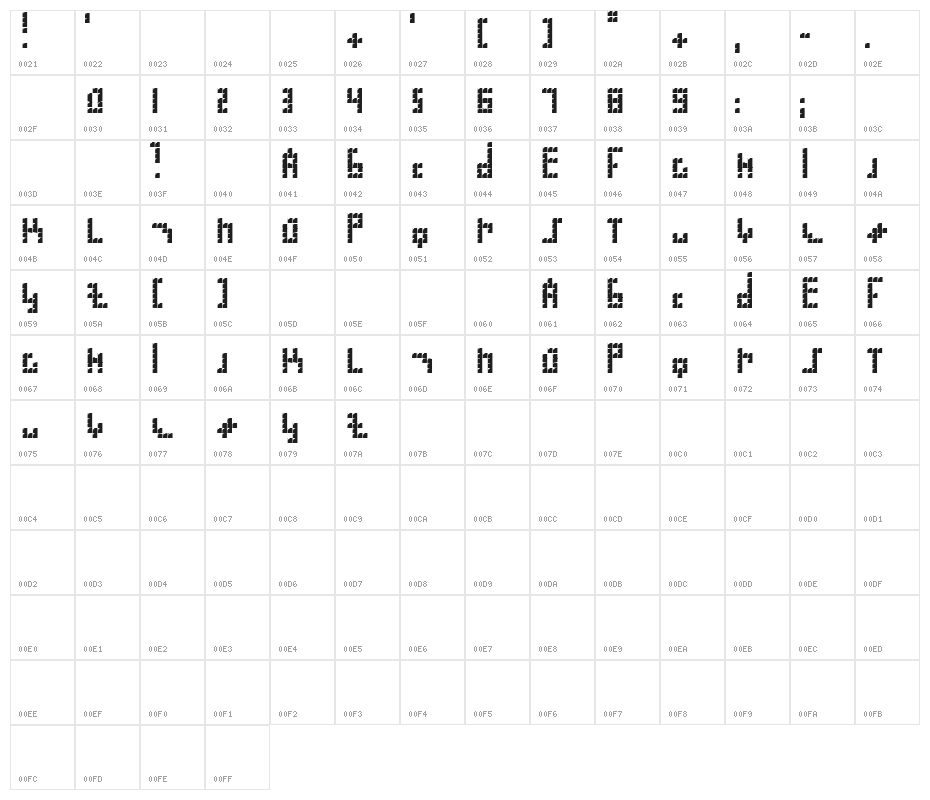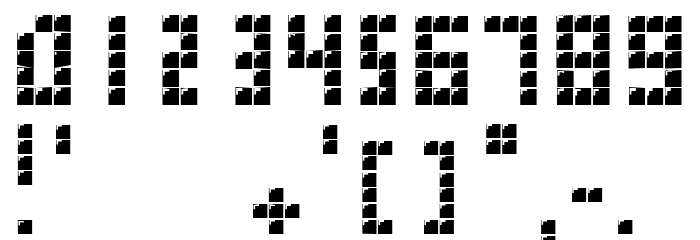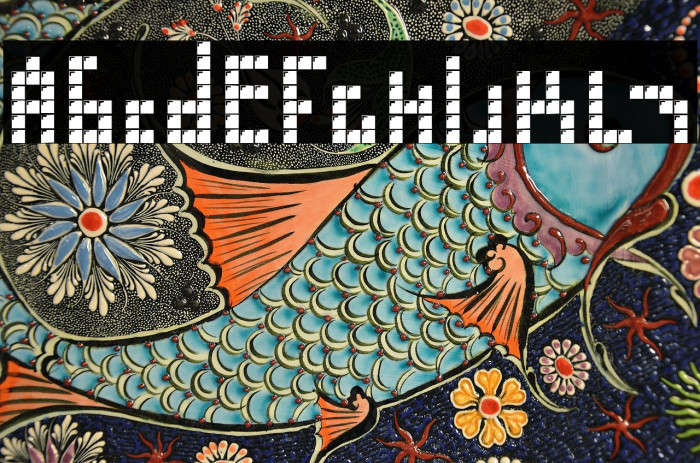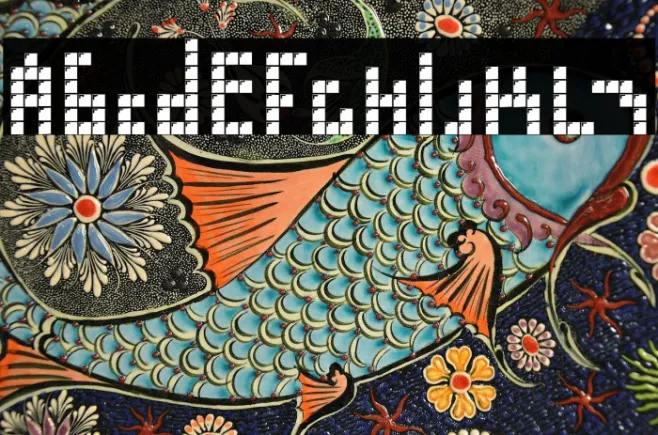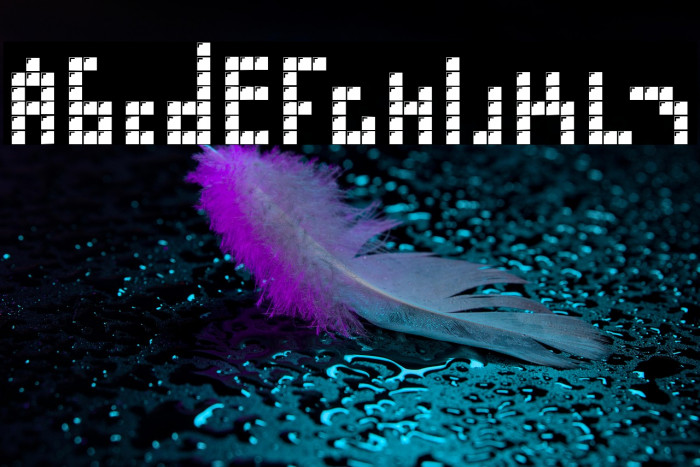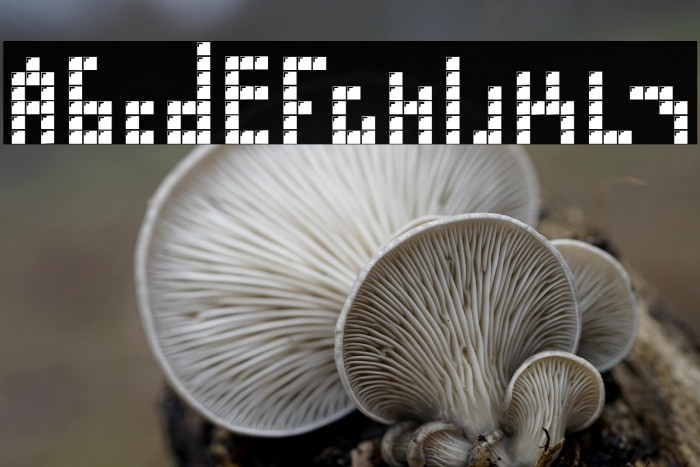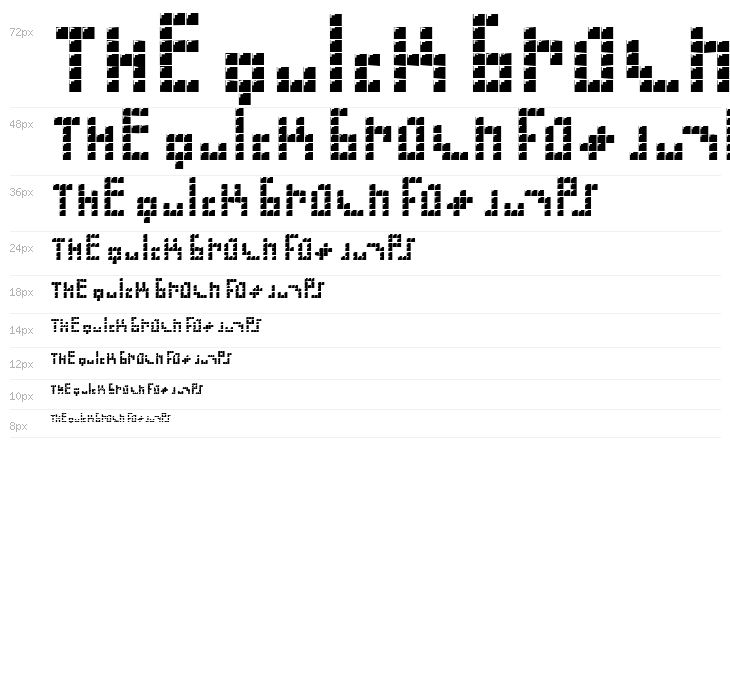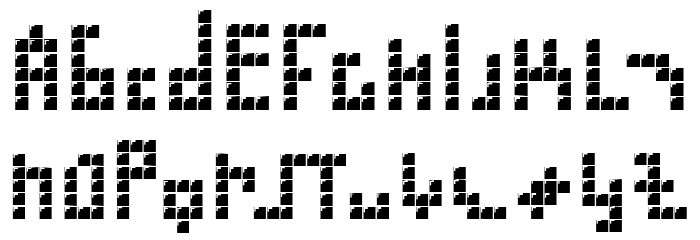
Blokus Font
Blokus Description
This font features a unique, blocky design composed of small square elements, creating a pixelated effect. Each character is constructed with a series of these squares, giving it a digital, retro appearance reminiscent of early video game graphics. The uppercase and lowercase letters maintain a consistent height, contributing to a uniform look across the text. Numbers and special characters follow the same design principle, ensuring a cohesive style throughout. The font's geometric nature makes it stand out, ideal for projects that require a modern yet nostalgic touch.
| Use Case | Headlines, Logos, Digital Art |
| Proposed Projects | Ideal for video game graphics, digital art projects, retro-themed designs, and tech-related branding. |